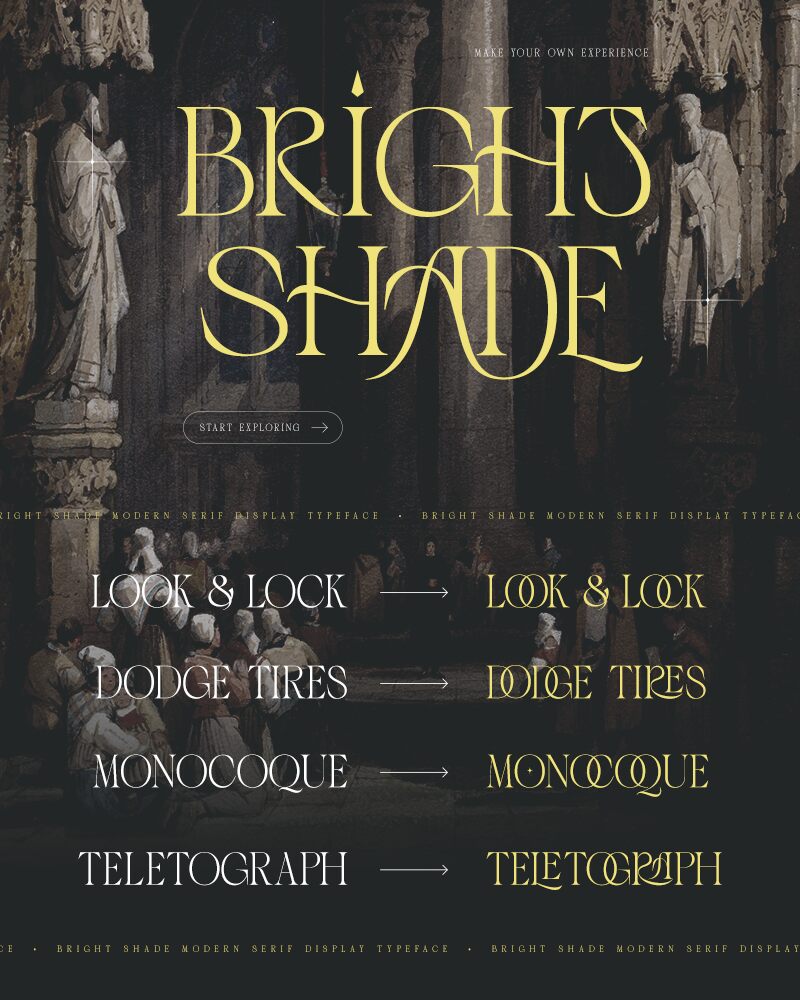
Bright shade Regular
Bright Shade font by Namara Creative is an elegant artistic flair free serif font with whimsical elements, high contrast, and ornate details. Flamboyant and contemporary, the modern aesthetic of this typeface is highlighted by its decorative quality.